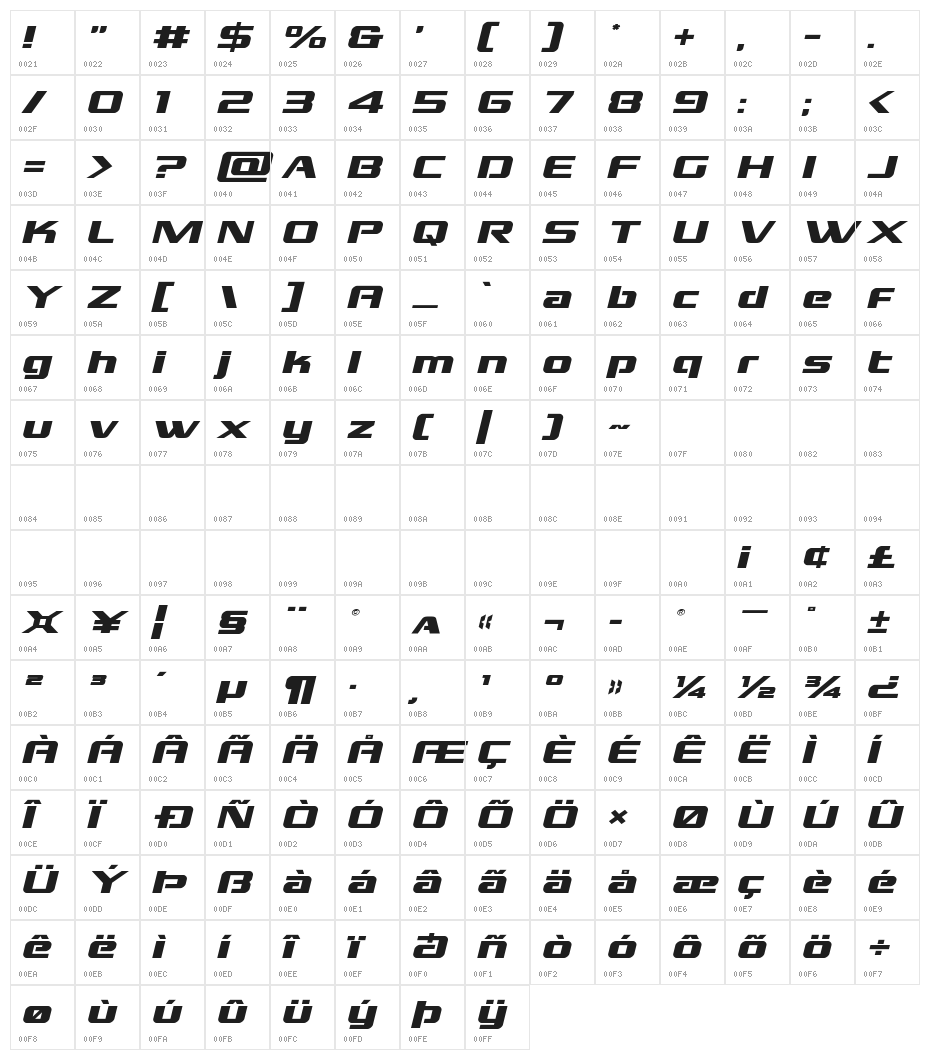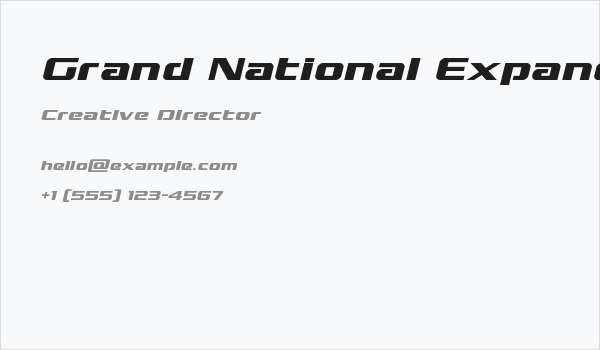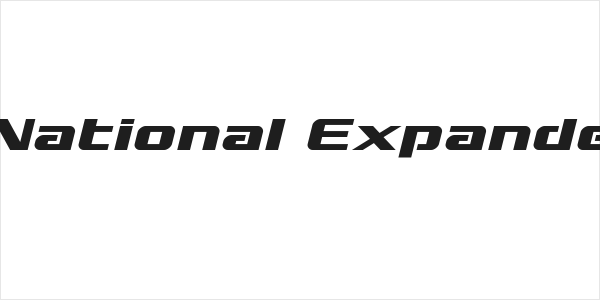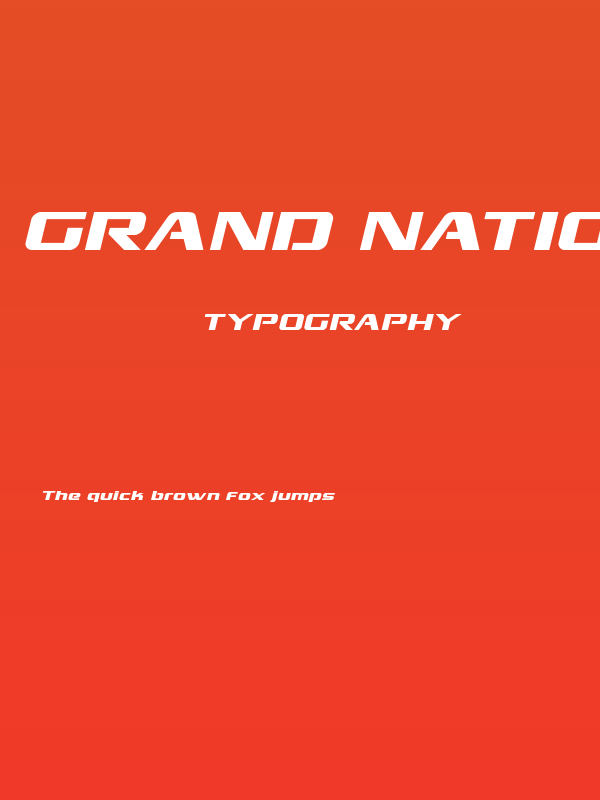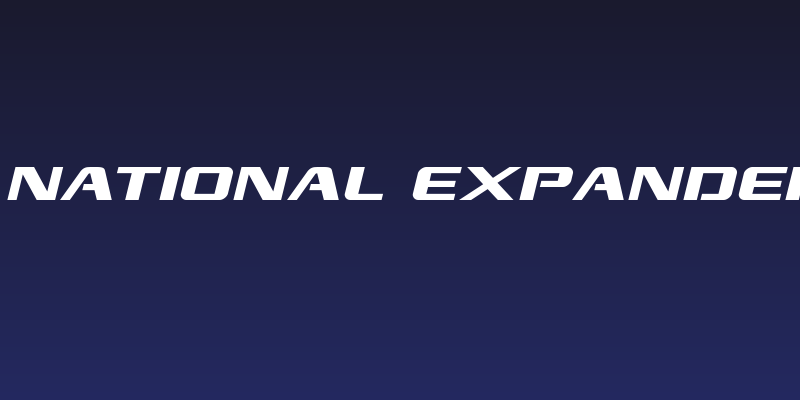
Grand National Expanded Italic Font
Grand National Expanded Italic Description
This font exhibits a bold and dynamic style with a distinctly italicized slant, giving it a sense of motion and energy. The characters are expanded, providing a wide and open appearance that enhances readability while maintaining a strong visual impact. The strokes are consistent in weight, contributing to a uniform and cohesive look. Its geometric structure is balanced with slightly rounded edges, adding a touch of softness to its otherwise robust design. The font's modern aesthetic makes it suitable for contemporary applications where a bold statement is desired.
| Proposed Projects | Ideal for sports branding, automotive advertisements, dynamic posters, and modern web design. |